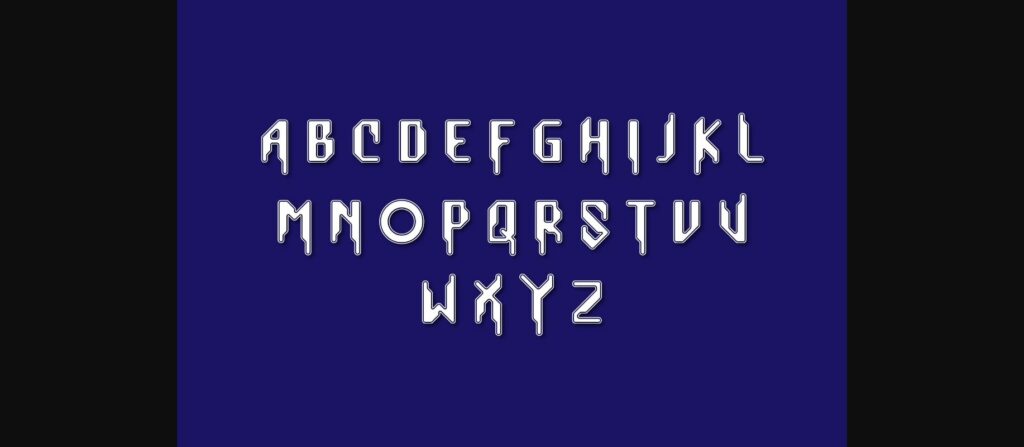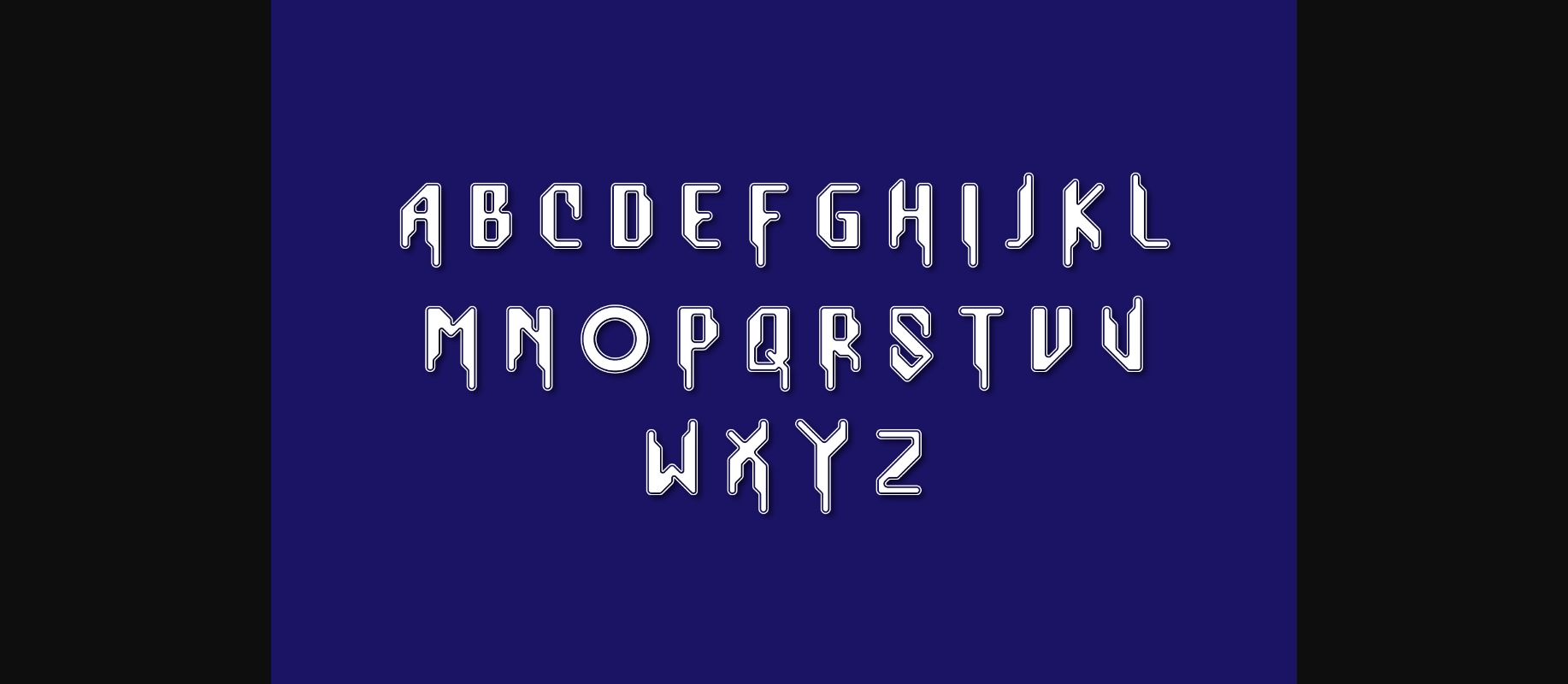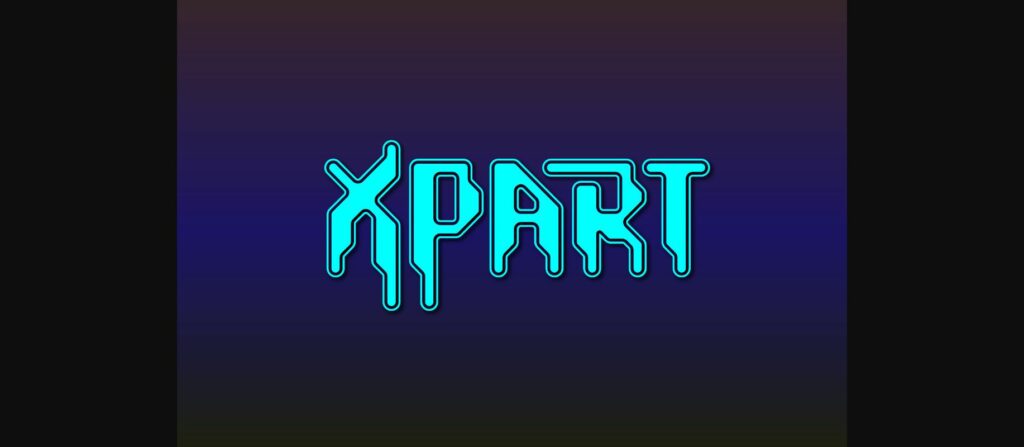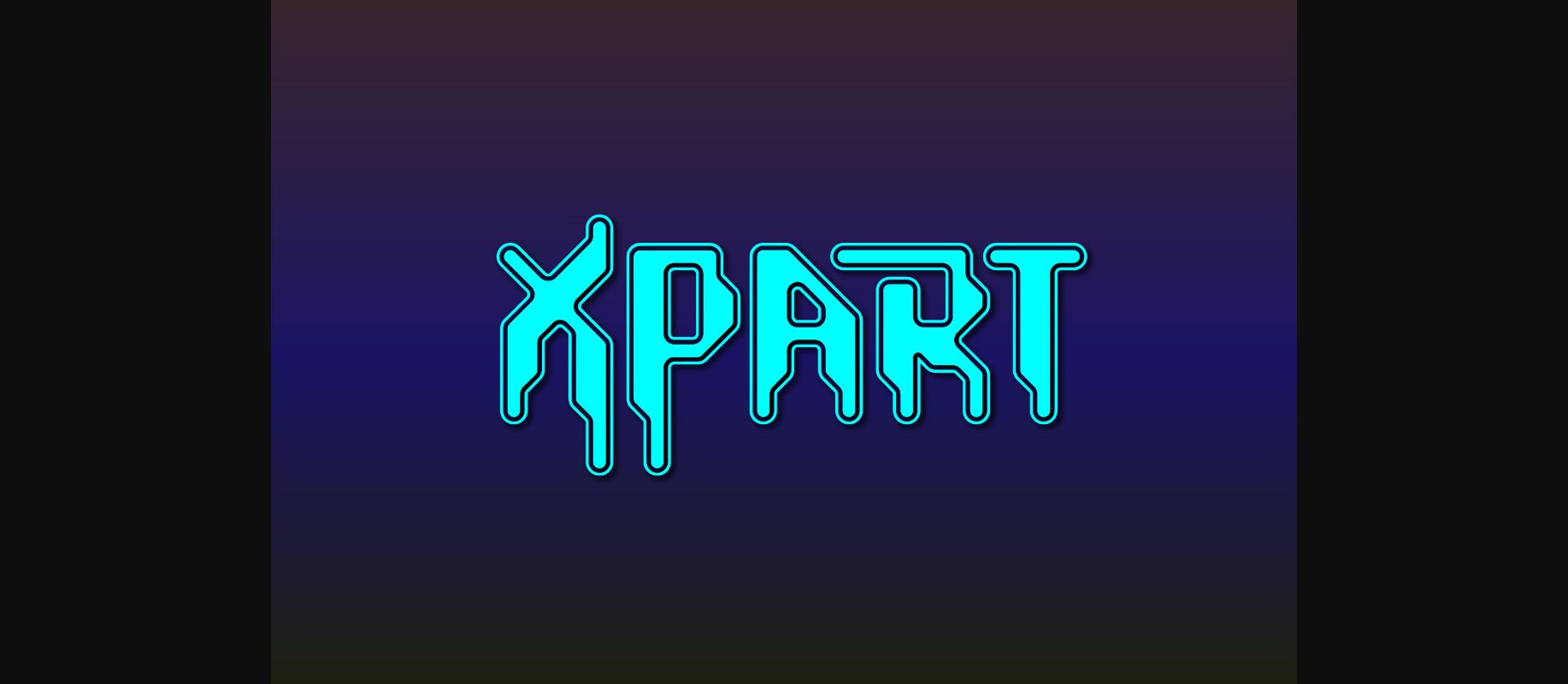
About Xpart Font
Xpart is an exquisite decorative font blending Gothic and modern styles, perfect for elevating movie titles, dramatic series names, captivating t-shirt designs, and striking book covers. With 99 meticulously crafted glyphs and 95 unique characters, itβs a versatile choice for creative projects.